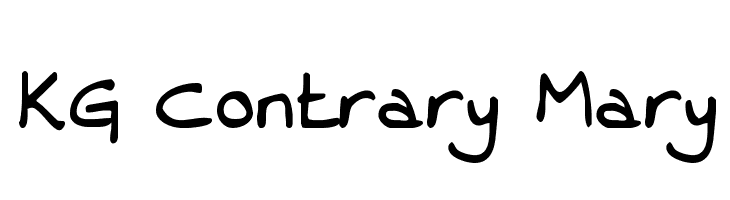
• KG Contrary Mary caratteri
( Fonts by www.kimberlygeswein.com - Kimberly Geswein )
A playful, handwritten font with bold, rounded strokes and a whimsical style.